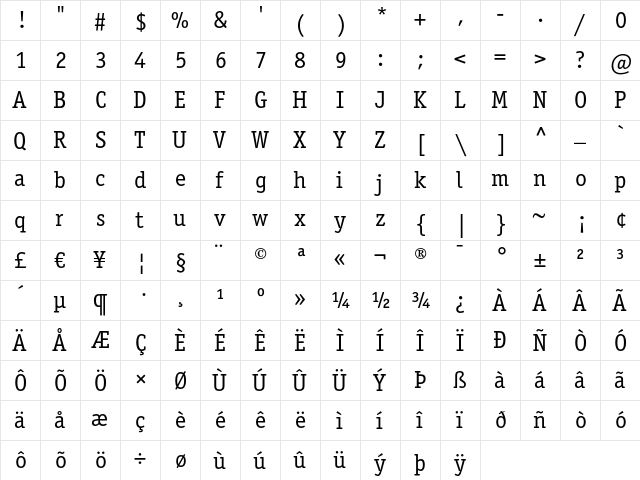
ITC Officina Serif LT Book
Design Context for ITC Officina Serif LT Typeface
ITC Officina Serif LT brings classic typographic sensibility to the table — its serifs and measured letterforms reflect centuries of print heritage. The delicate stroke weight brings airiness and refinement to layouts.
Pro Tip: Set ITC Officina Serif LT at slightly larger body copy sizes than you would a regular-weight serif to compensate for its delicate stroke contrast.